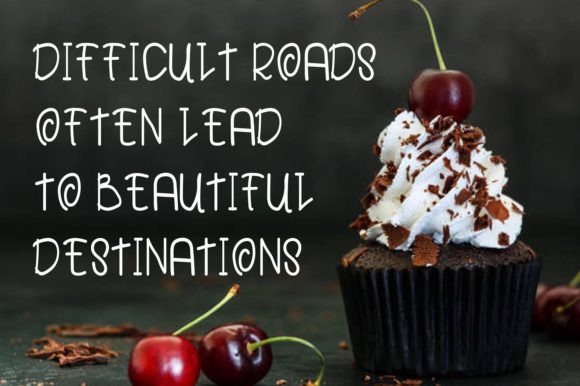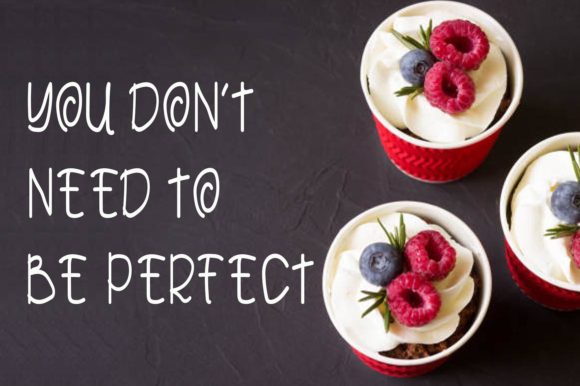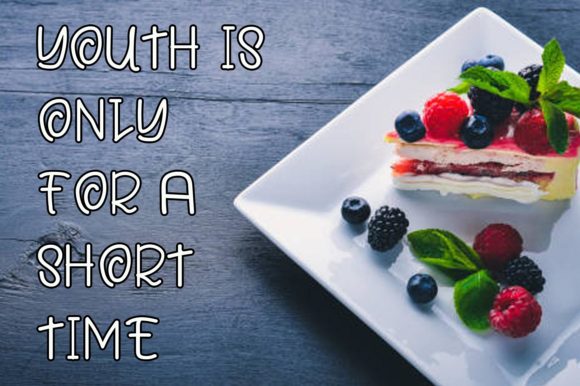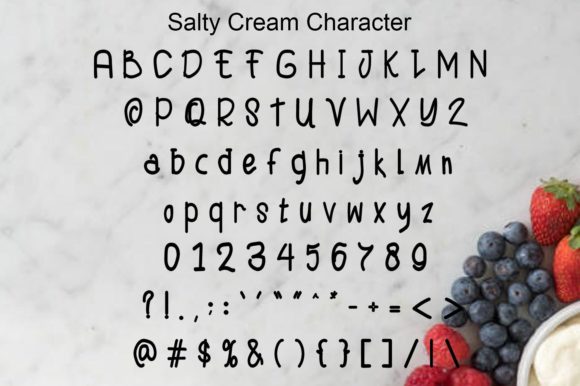
Introduction to Salty Cream Font
Salty Cream is a quirky and casual handwritten font that will look outstanding in any context.
Whether youโre looking for fonts for Instagram or calligraphy scripts for DIY projects, this font will turn any creative idea into a true piece of art Salty Cream works great for various design projects, including logos, headings, t-shirts, letterhead, signage, labels, news, posters, badges, and more.
Key Features of Salty Cream Font